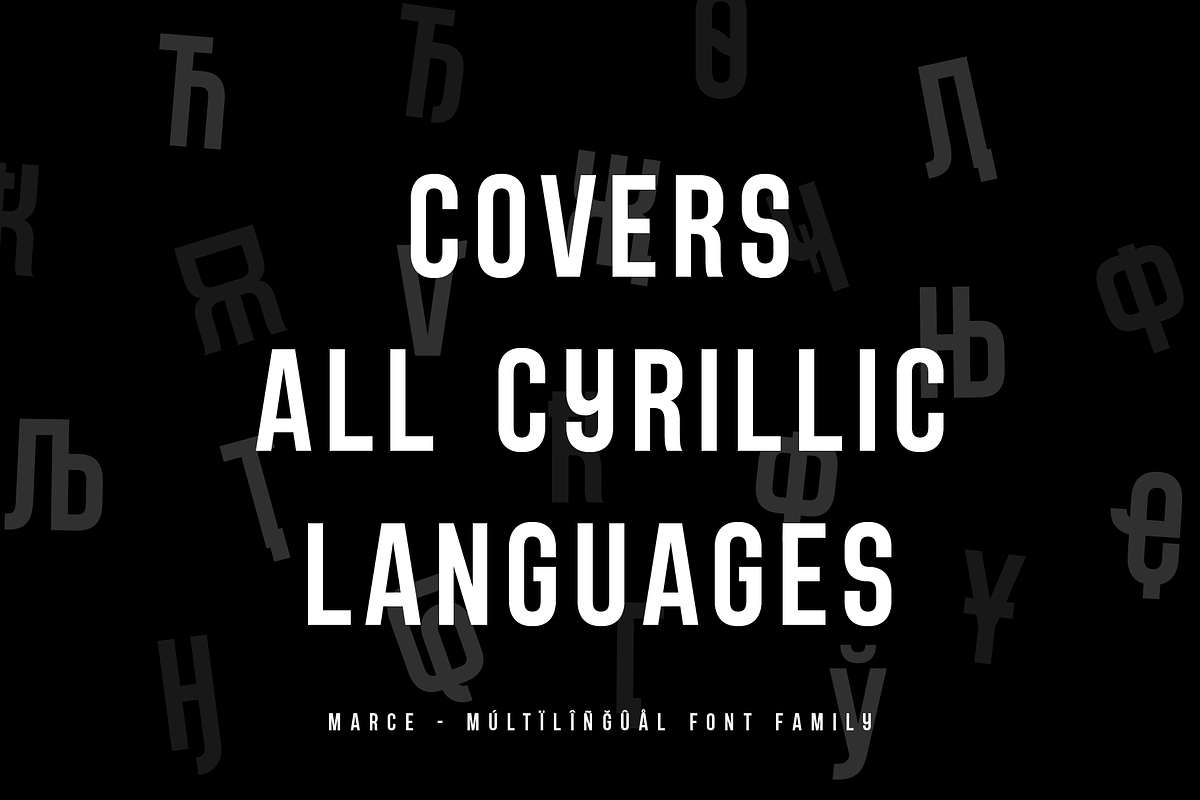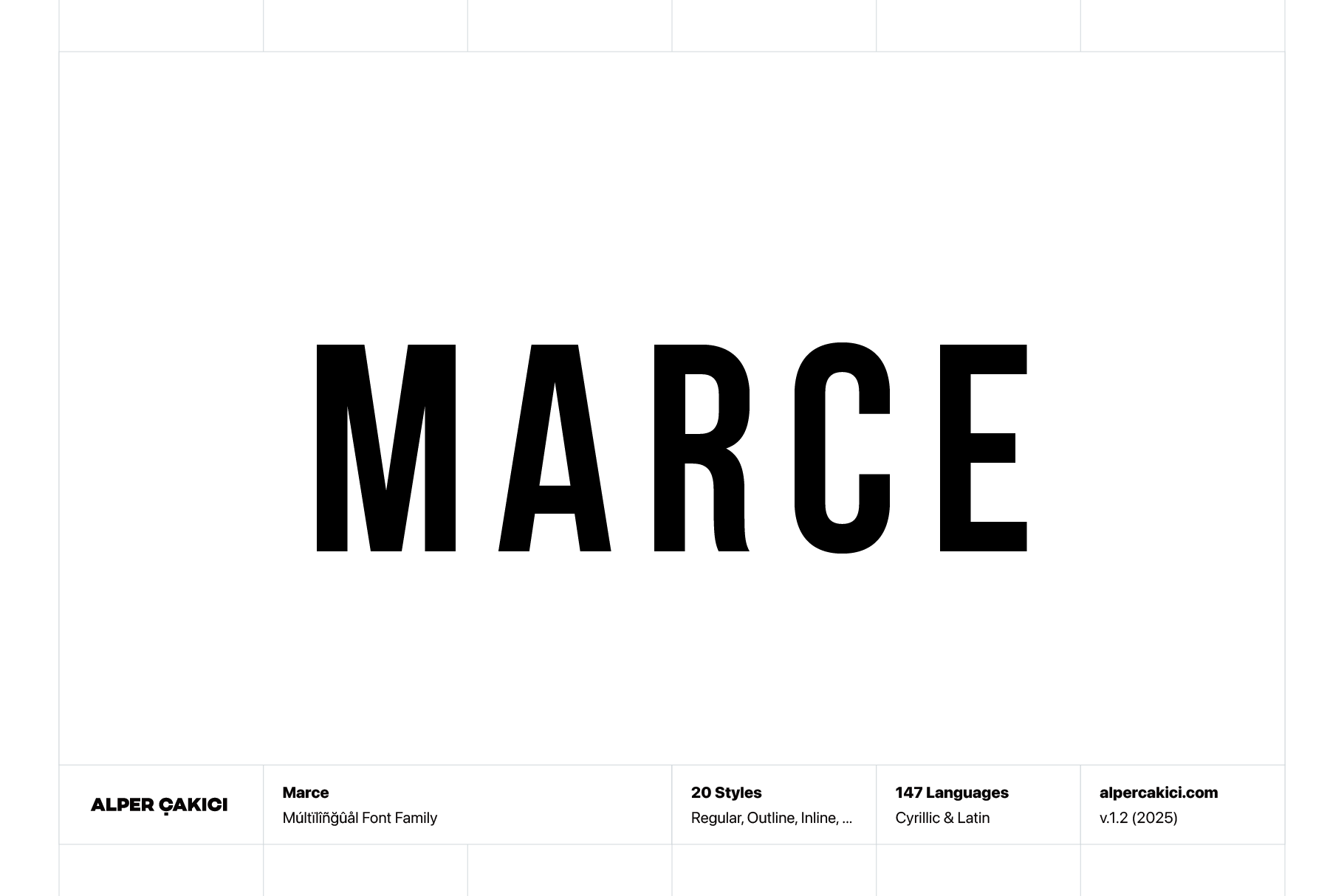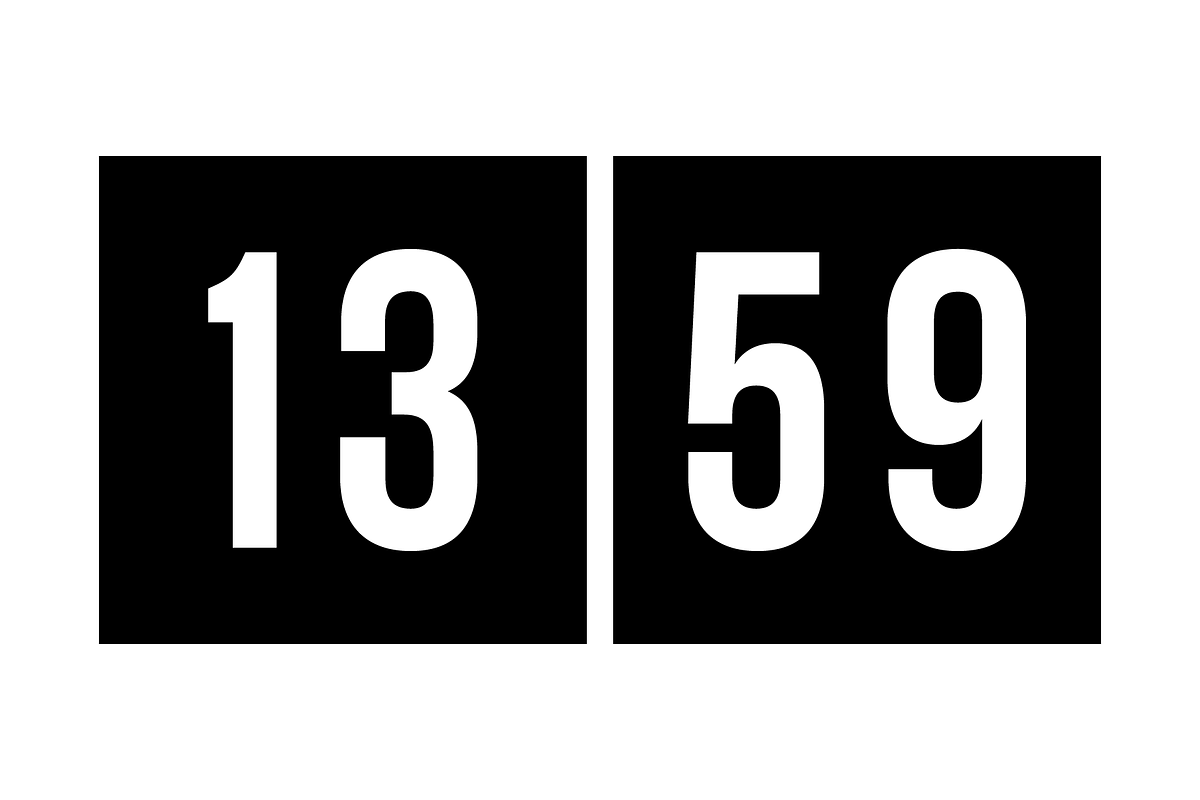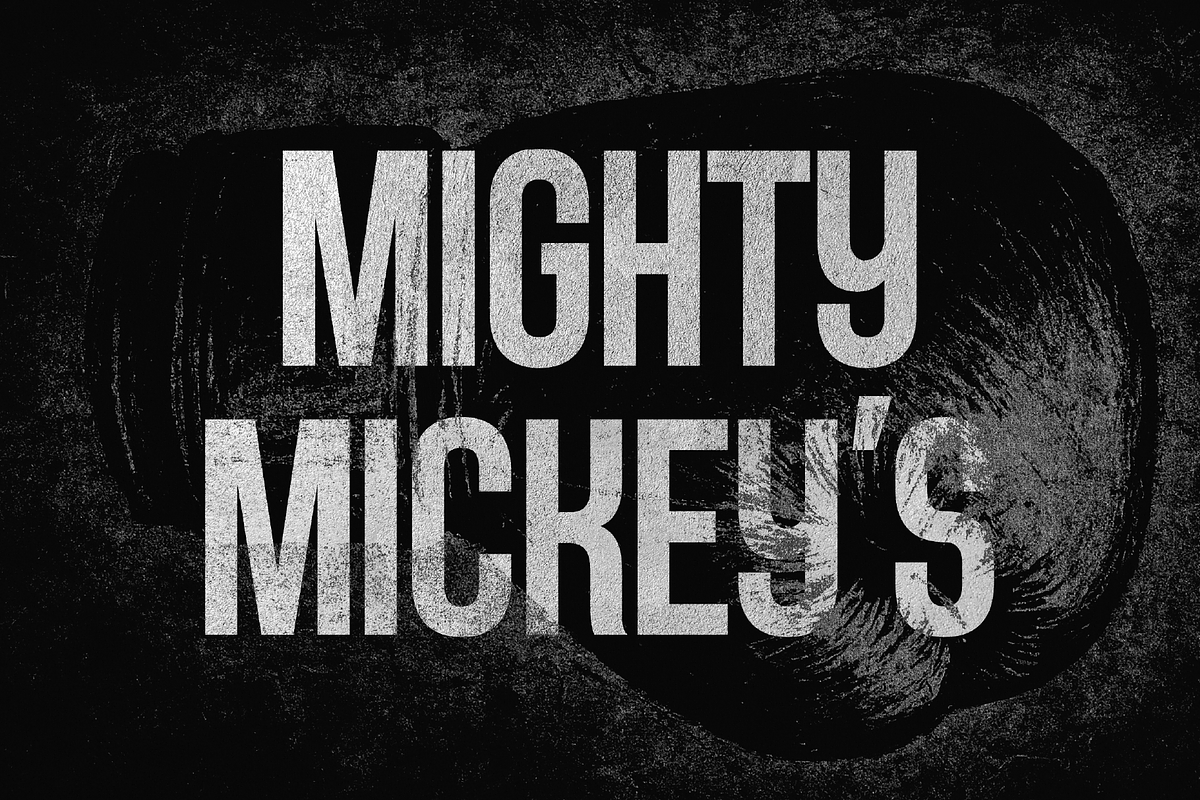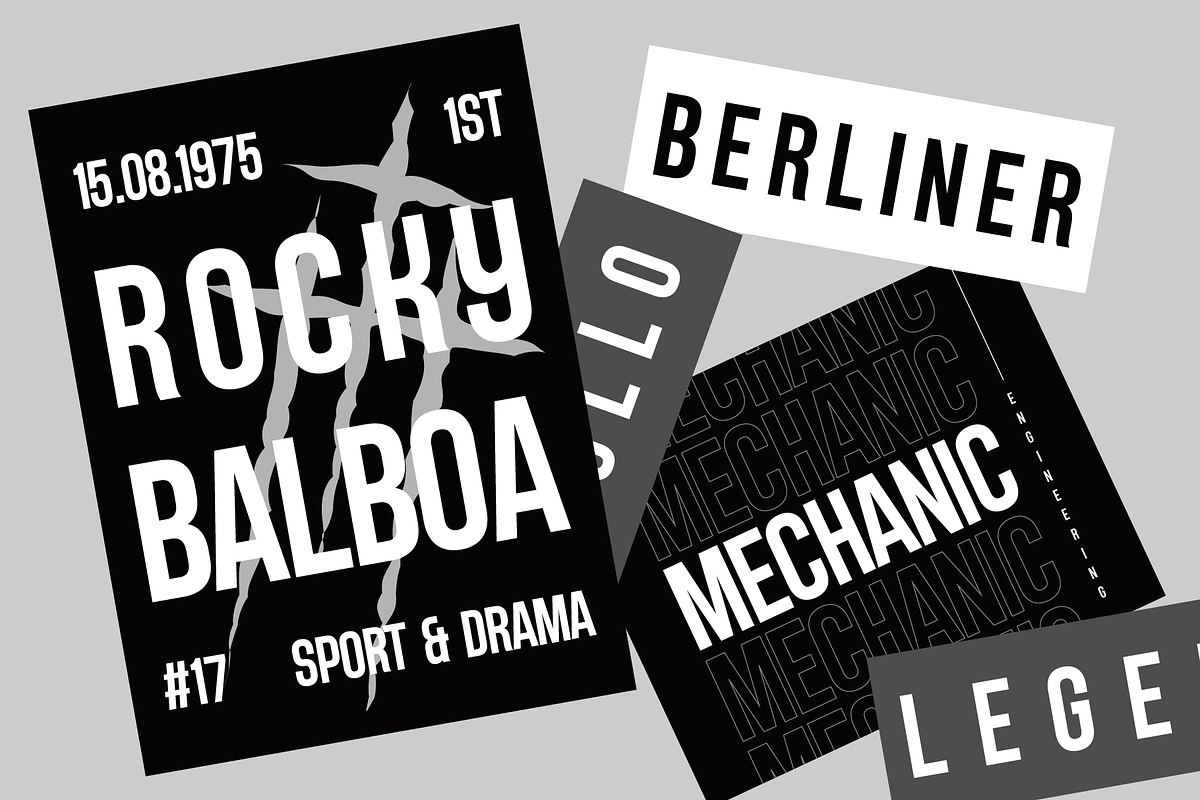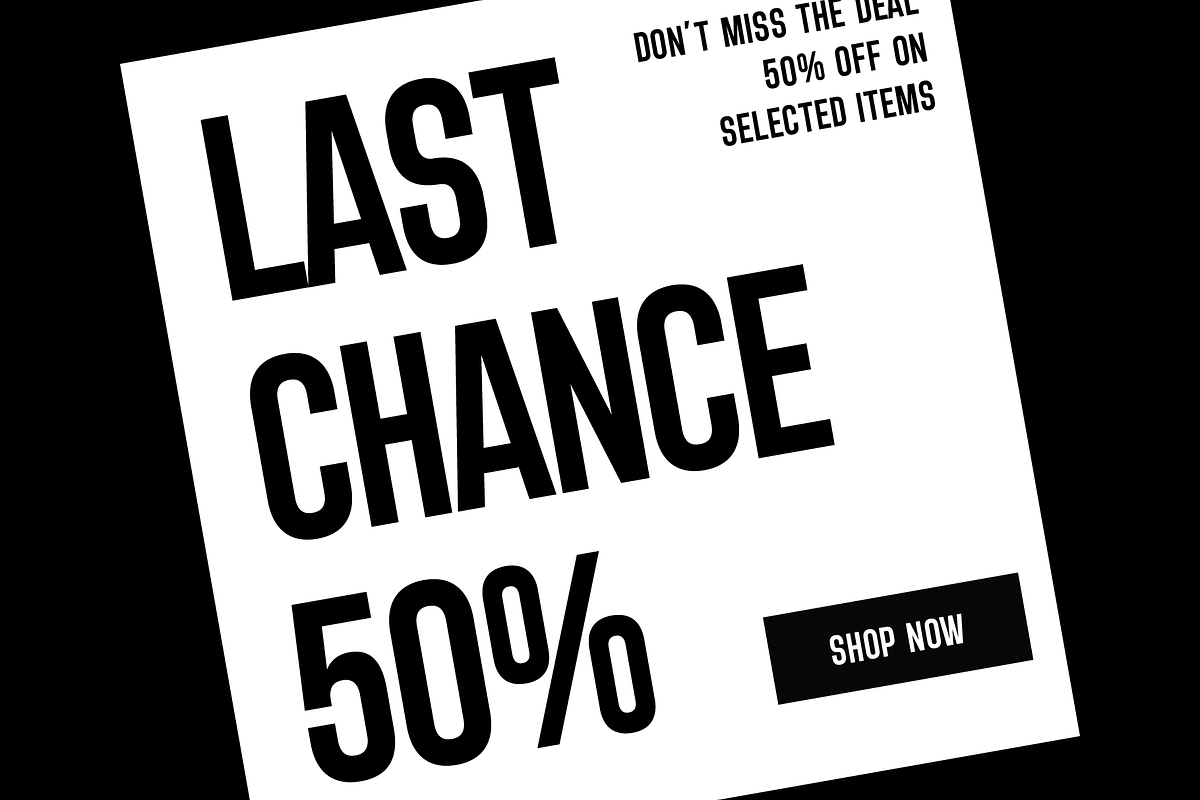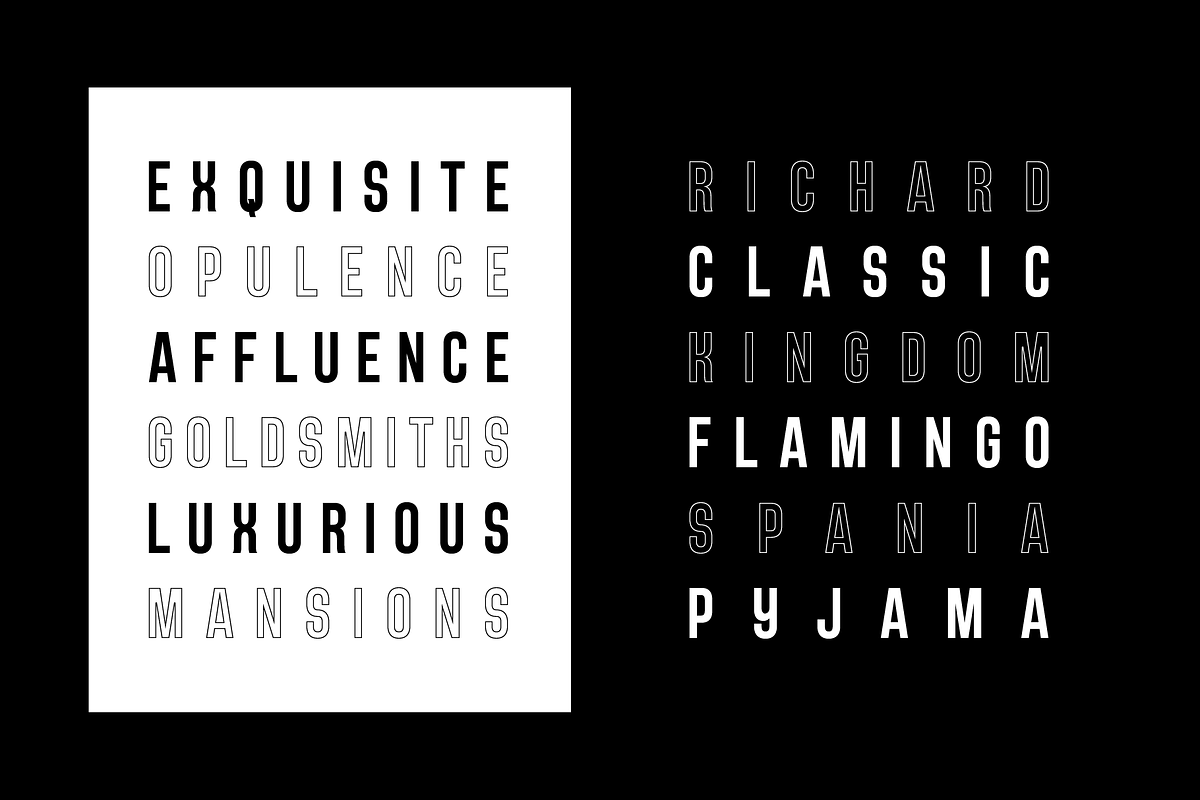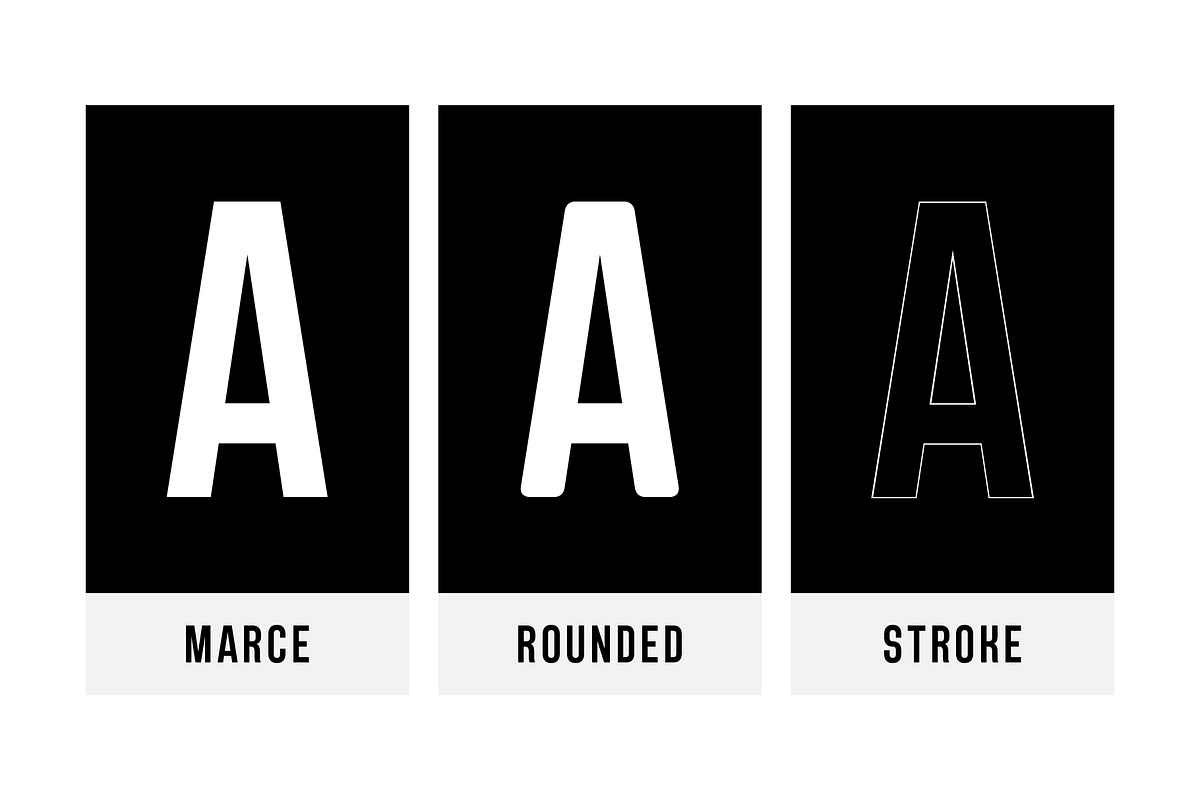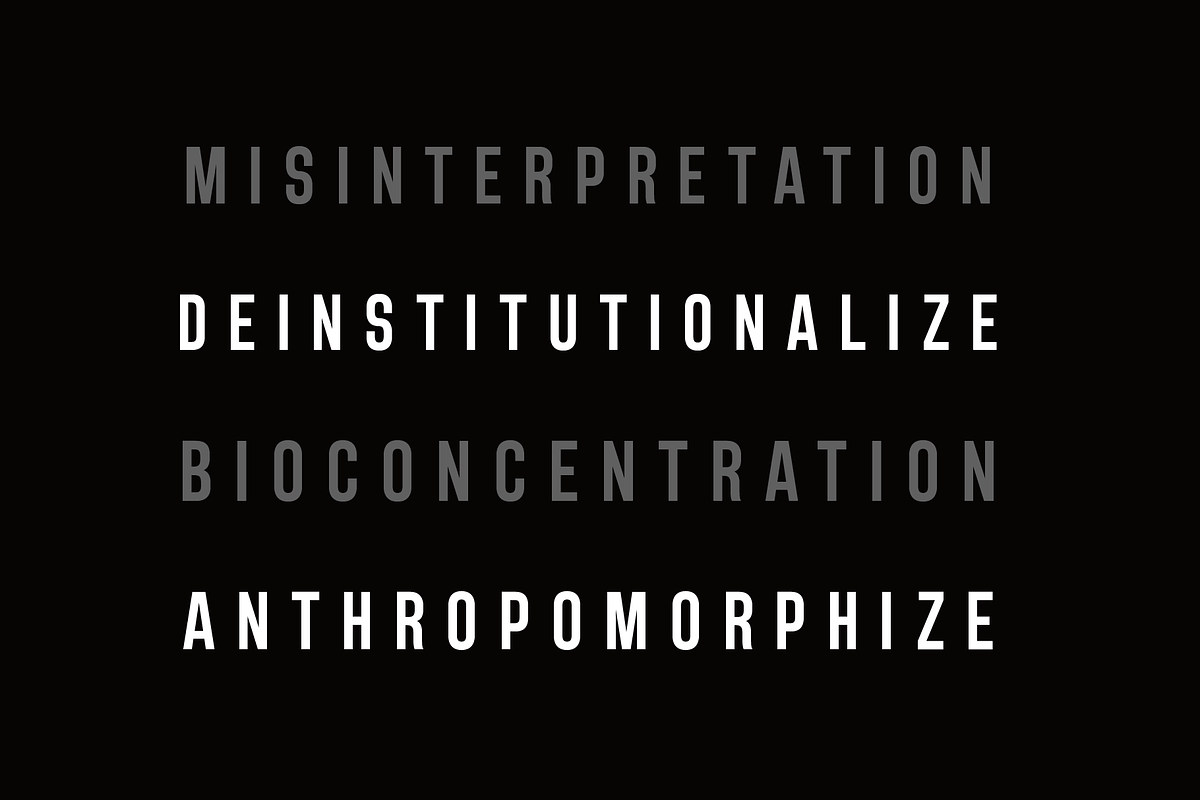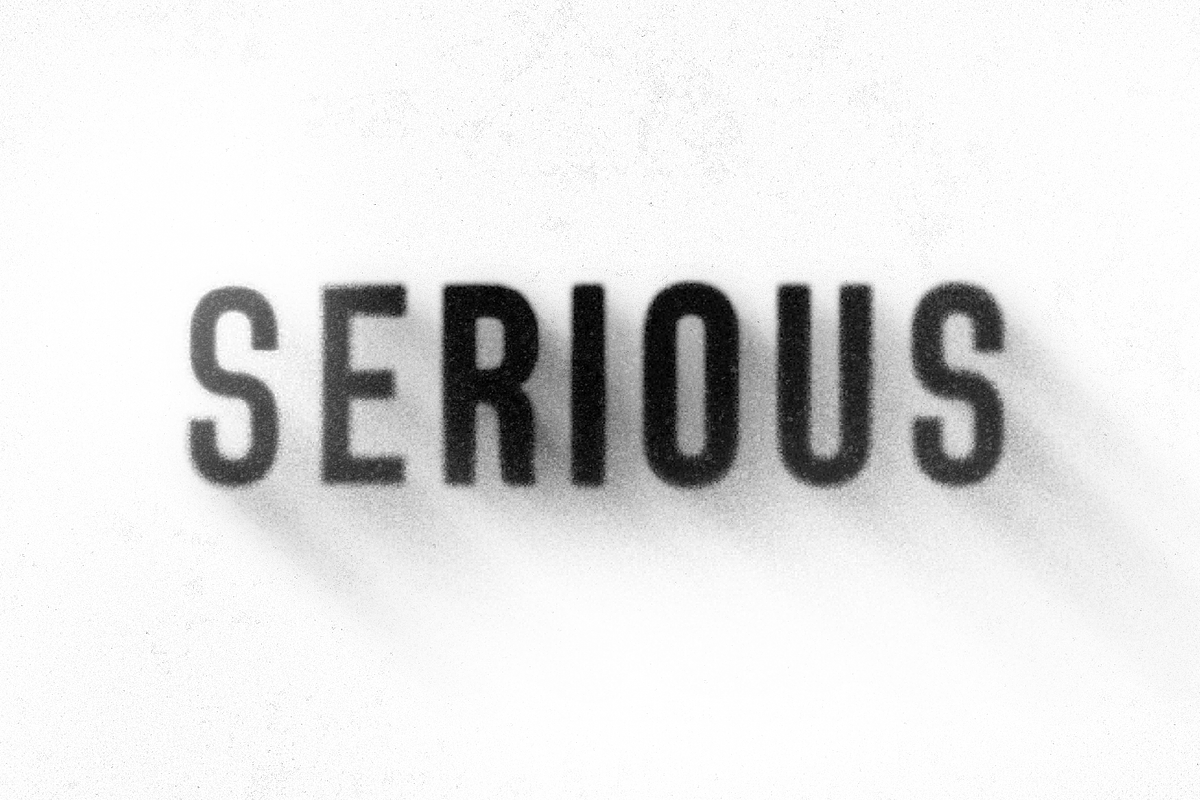
Marce - Powerful Font Family
Marce is a geometric sans with presence — clean, confident, and built for impact. Its rounded precision and sharp structure create the perfect balance between modern minimalism and bold expression.
With 20 meticulously crafted styles, Marce offers full creative range — from sleek inline and outline cuts to commanding ultra-black weights. Whether for print or digital, it delivers exceptional clarity for logos, headlines, posters, packaging, and branding.
Every curve, counter, and connection has been shaped for harmony — balanced proportions, smooth transitions, and a refined edge that holds its strength in any layout.
✨ Inside the family:
- 20 fonts — Inline, Outline, Regular, Rimmed, Rounded, Stroke, and matching Italics
- Clean geometric construction with a smooth, modern finish
- Ideal for bold titles, elegant headers, and timeless identities
- Supports 147 languages, including full Cyrillic coverage
With precise kerning and carefully tuned spacing, Marce ensures professional results across every medium. Combining classic geometric proportions with a contemporary aesthetic, it’s a typeface that’s both versatile and distinctive — designed for creators who value precision, clarity, and attitude. Marce doesn’t just communicate — it commands attention.